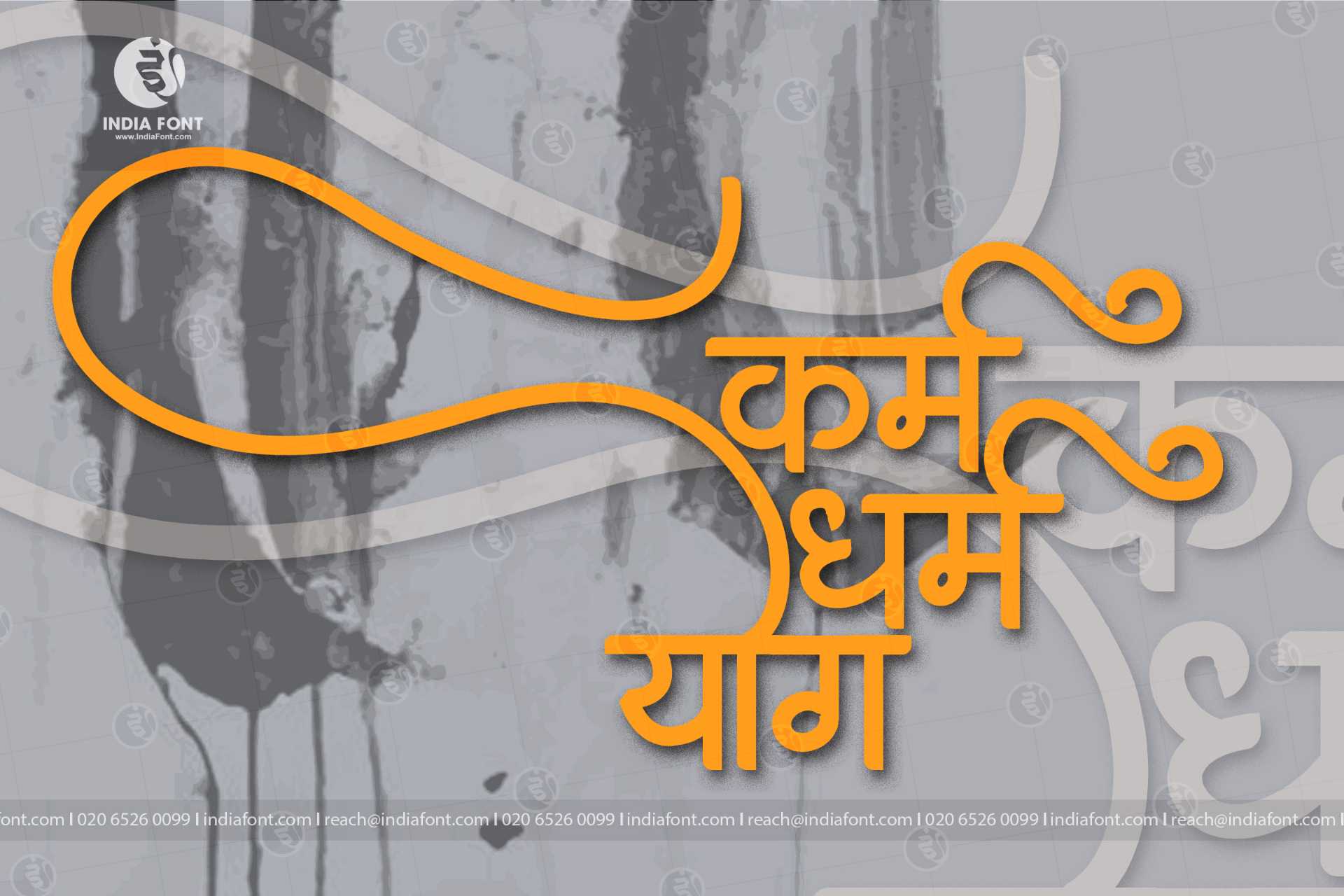
AMS Anaram
AMS Anaram is a meticulously designed font specifically tailored for Hindi and Marathi publications. With its clean and professional look, this font is the perfect choice for books, magazines, newspapers, and other printed materials.
AMS Anaram font design inspiration and usage example
About AMS Anaram Font
AMS Anaram is a meticulously designed font specifically tailored for Hindi and Marathi publications. With its clean and professional look, this font is the perfect choice for books, magazines, newspapers, and other printed materials. This publication font combines elegance with functionality, making it perfect for various design applications.
AMS Anaram is a professionally crafted publication typeface that brings clarity and style to your projects. Designed with attention to detail, it supports hindi and marathi characters flawlessly.
Whether you're working on posters, festival-event-materials, greeting-cards, or other creative projects, AMS Anaram delivers consistent performance across both digital and print media. This carefully designed typeface ensures readability and visual appeal in all your design work.
About AMS Anaram Typography Style
AMS Anaram is a professionally crafted publication font that exemplifies modern Hindi typography design. This free font is perfect for designers seeking impactful poster and display applications.
Available in 1 weight and supporting hindi, marathi scripts, AMS Anaram offers exceptional versatility for both digital and print media. Whether you're working on posters, festival-event-materials, greeting-cards, this carefully designed typeface ensures consistent quality and professional results across all your typography projects.